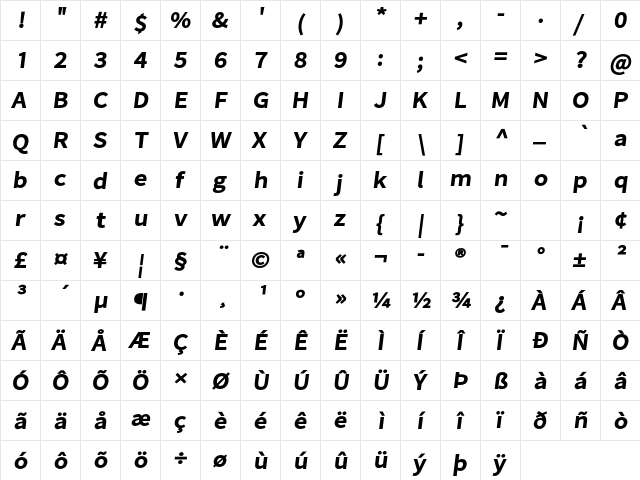
Falling Sky Bd+Obl Font Preview
Falling Sky Bd+Obl
Falling Sky Bd+Obl Font Details
| Style | Bd+Obl |
| Designer | Paul D. Hunt |
Design Context for Falling Sky Typeface
Falling Sky offers clean, dependable letterforms without strong stylistic allegiance, making it a practical choice for designers who need flexibility. The heavy weight commands attention and anchors typographic hierarchies.